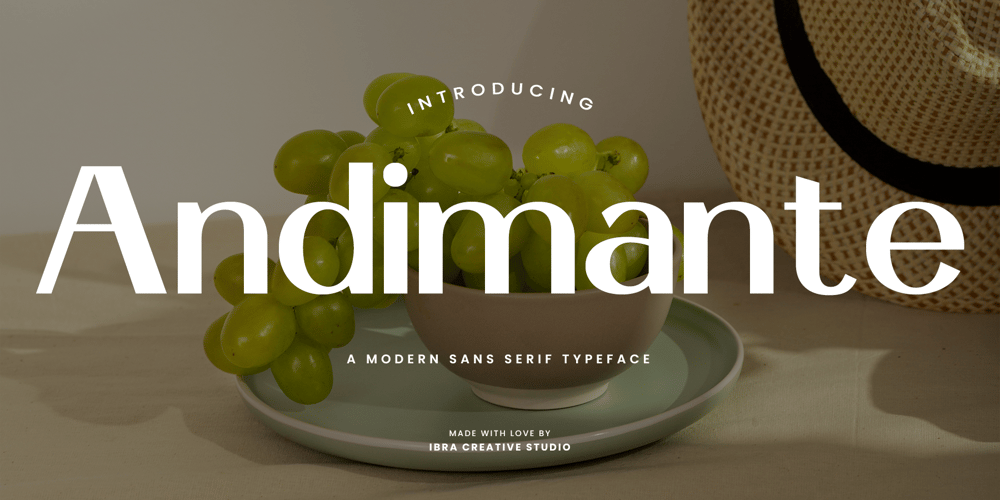
Andimante Font Family was designed by Roisatul Azizah and published by IbraCreative. Andimante contains 1 styles and family package options. Andimante – A Modern Sans Serif TypefaceAndimante, a modern sans-serif typeface, stands at the forefront of contemporary design with its clean lines, sleek geometry, and a distinct touch of sophistication. Crafted with precision, each letter exudes a sense of clarity and efficiency, making it an ideal choice for a wide range of applications, from digital interfaces to editorial design. The absence of decorative serifs lends Adimante a timeless and versatile quality, ensuring seamless integration into various design contexts. With its balanced proportions and modern aesthetic, Adimante effortlessly communicates a sense of professionalism and innovation, making it a go-to typeface for those seeking a sleek and refined typographic solution in the ever-evolving landscape of modern design. Andimante is perfect for branding projects, logo, wedding designs, social media posts, advertisements, product packaging, product designs, label, photography, watermark, invitation, stationery, game, fashion and any projects.Fonts include multilingual support for; Afrikaans, Albanian, Czech, Danish, Dutch, English, Estonian, Finnish, French, German, Hungarian, Italian, Latvian, Lithuanian, Norwegian, Polish, Portuguese, Slovak, Slovenian, Spanish, Swedish.